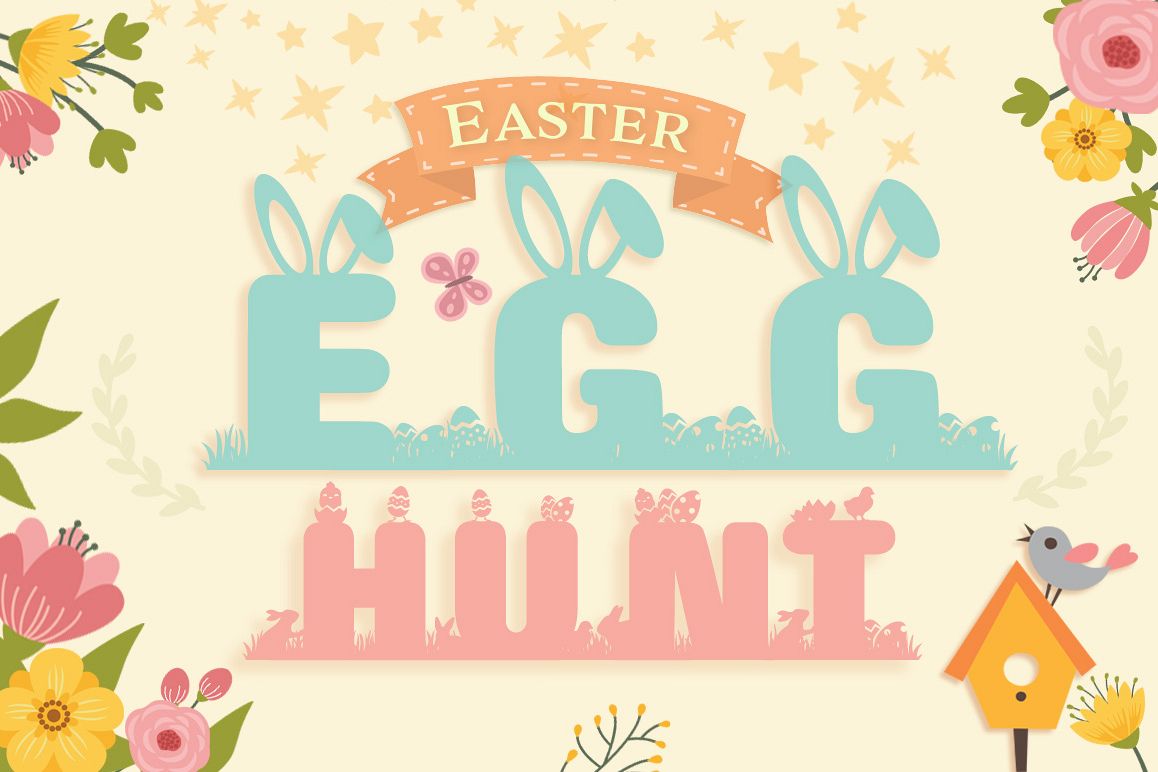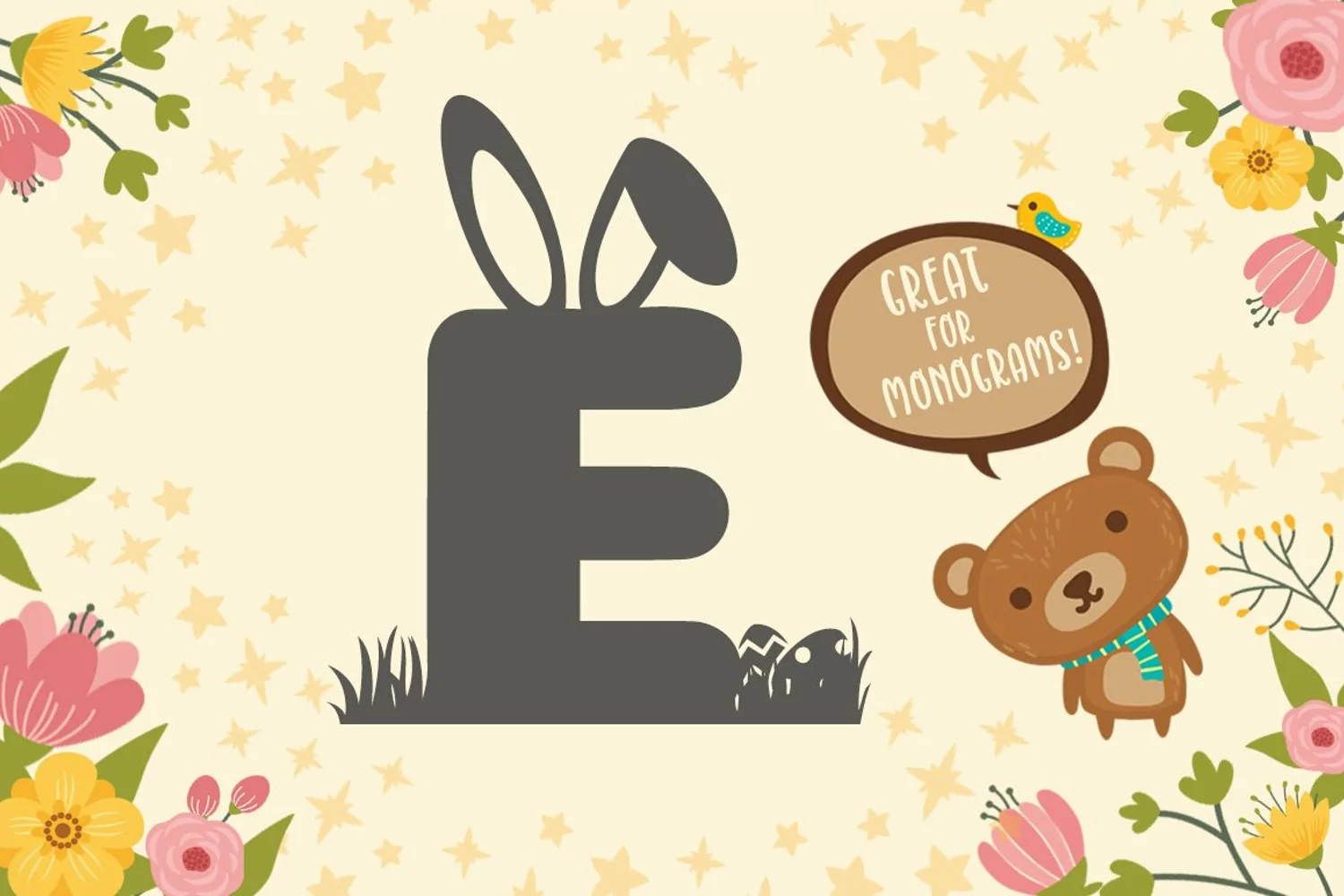
Easter Special Easter Egg Hunt Font
A beautiful font just in time for Easter! Each letter in this font was carefully designed to have a story of its own.
It is intended to be used as a header font, ornamental font and for
craft products! Optimized for crafters with Cricut and Silhouette
Studio! The number of points in each letter is reduced to a minimum and
the cutting takes much less time.
The font comes with uppercase A-Z letters, 0-9 numbers and limited punctuation.